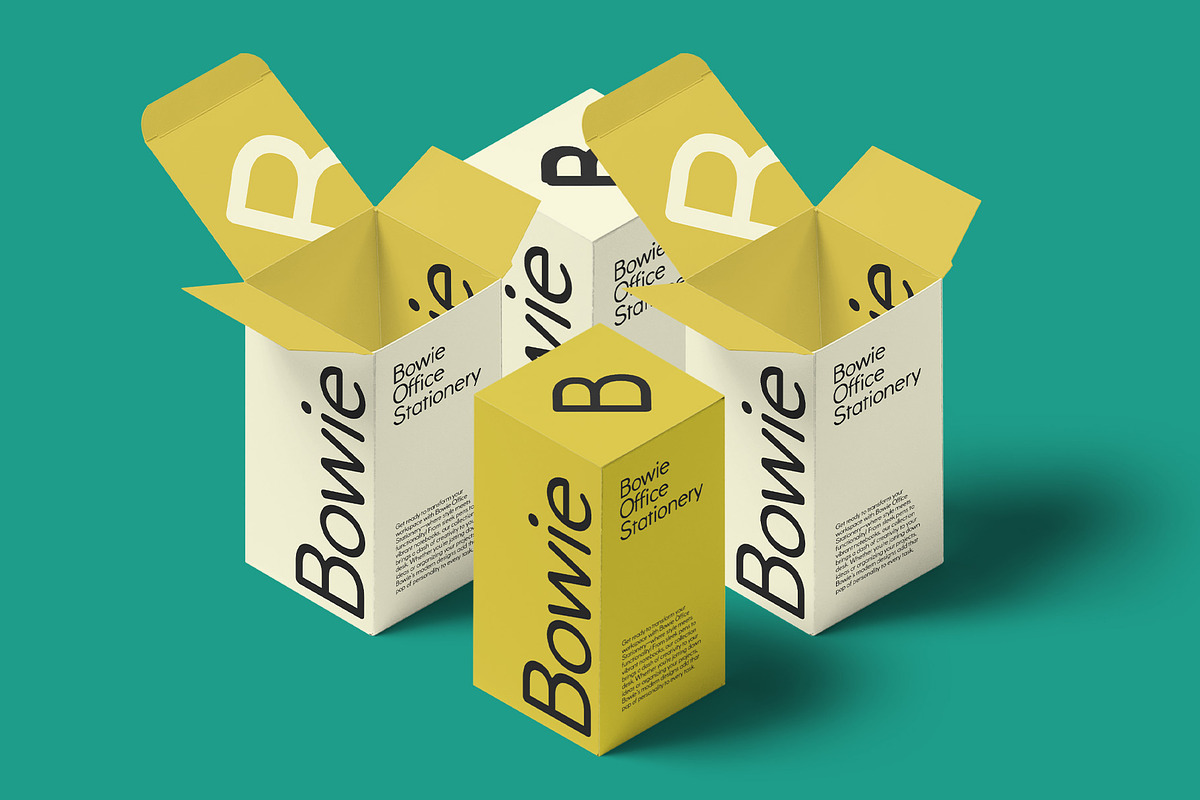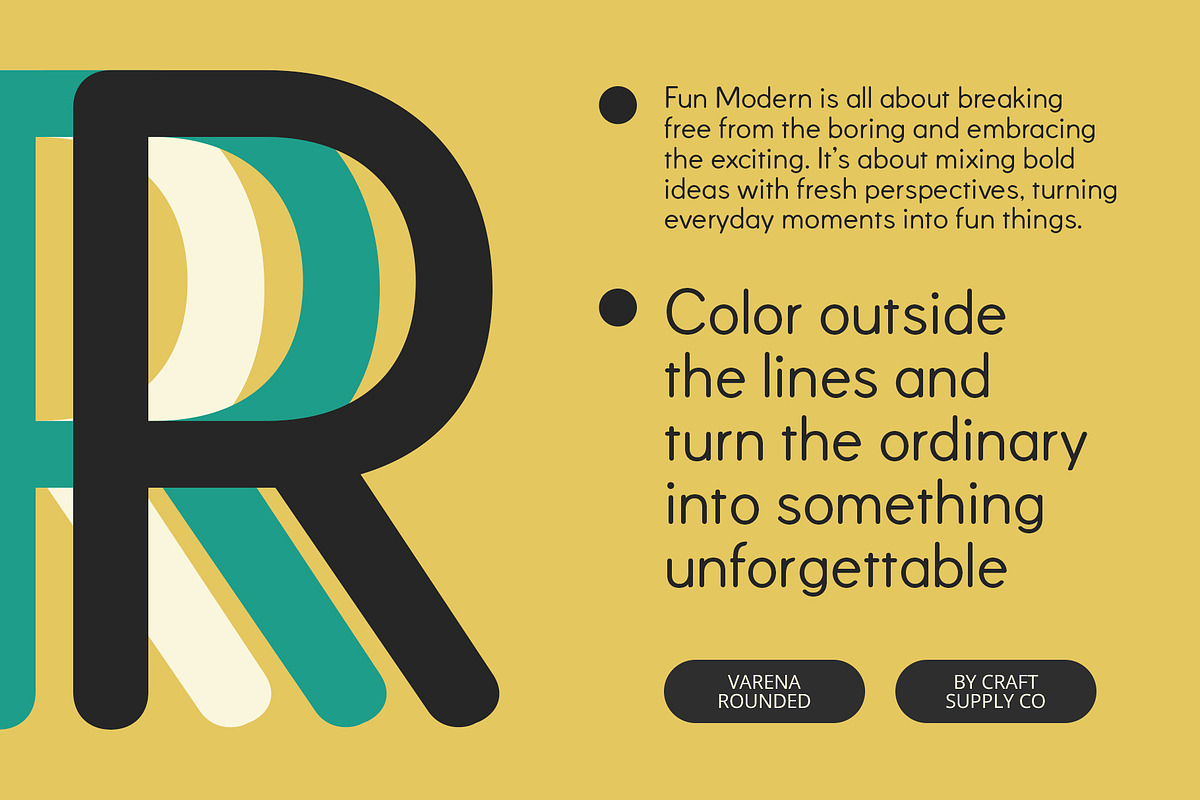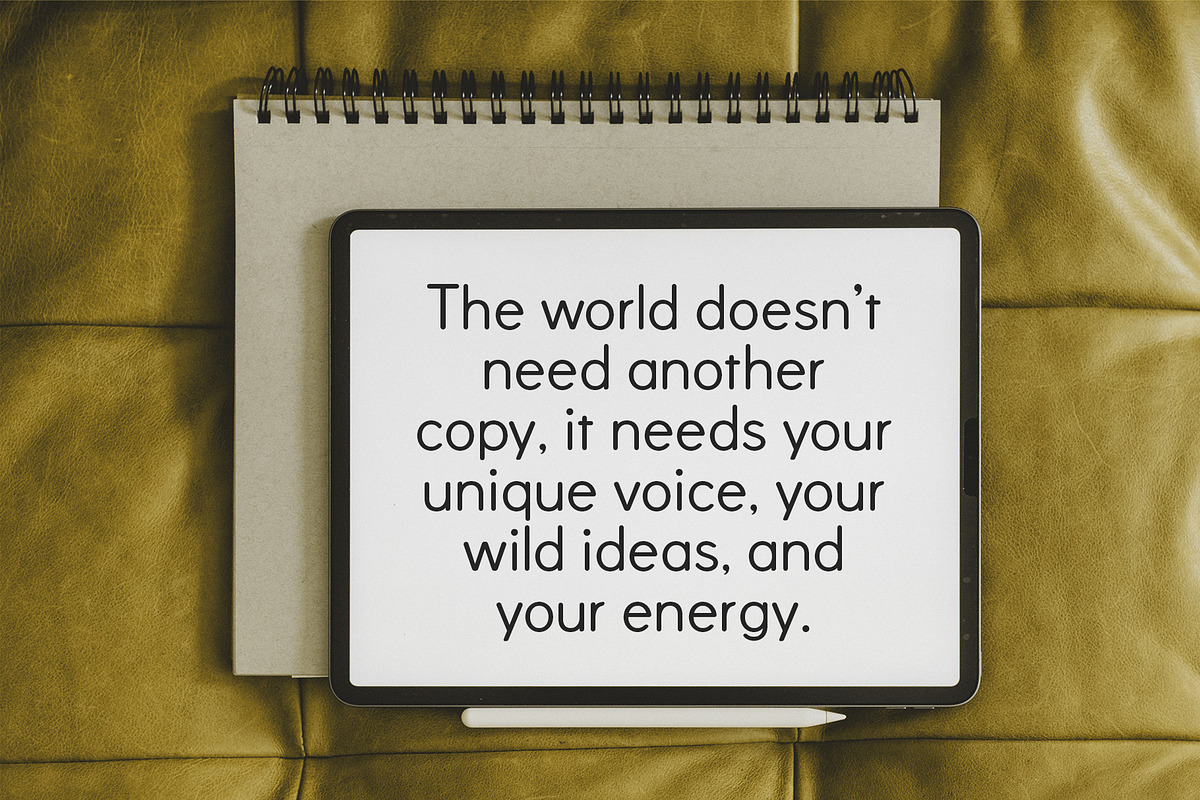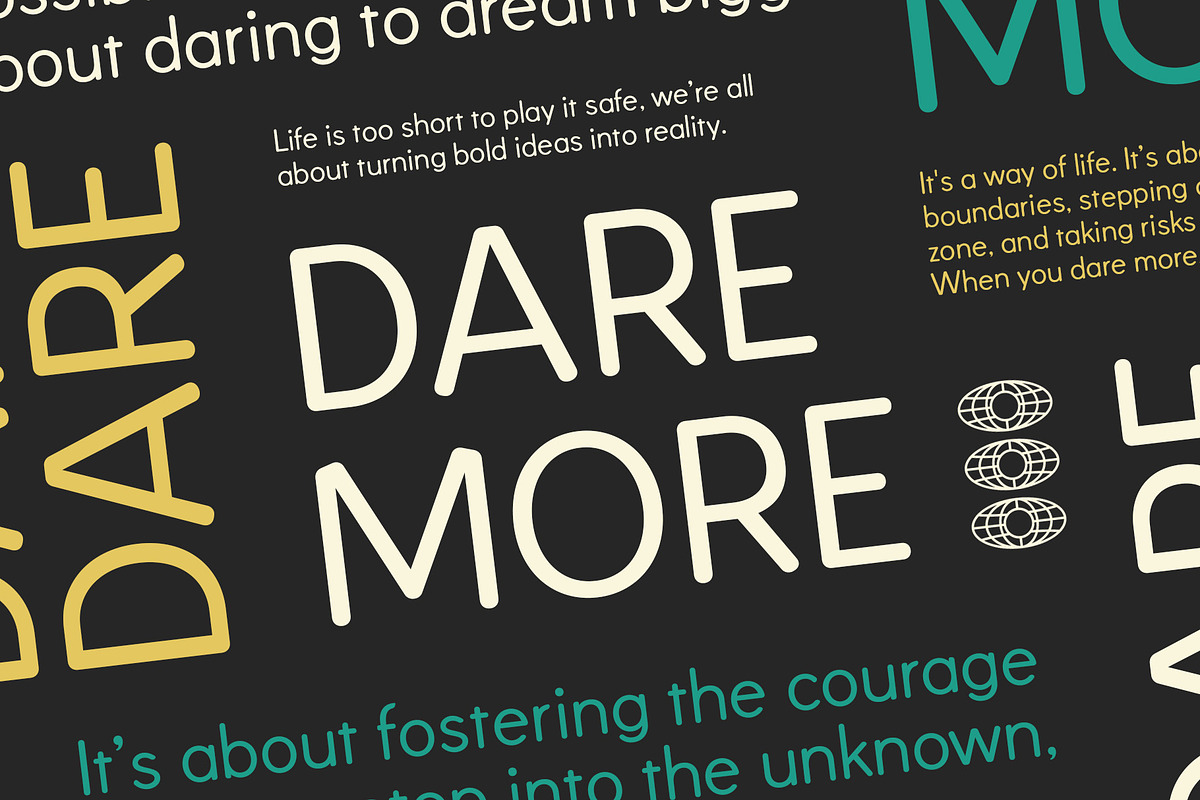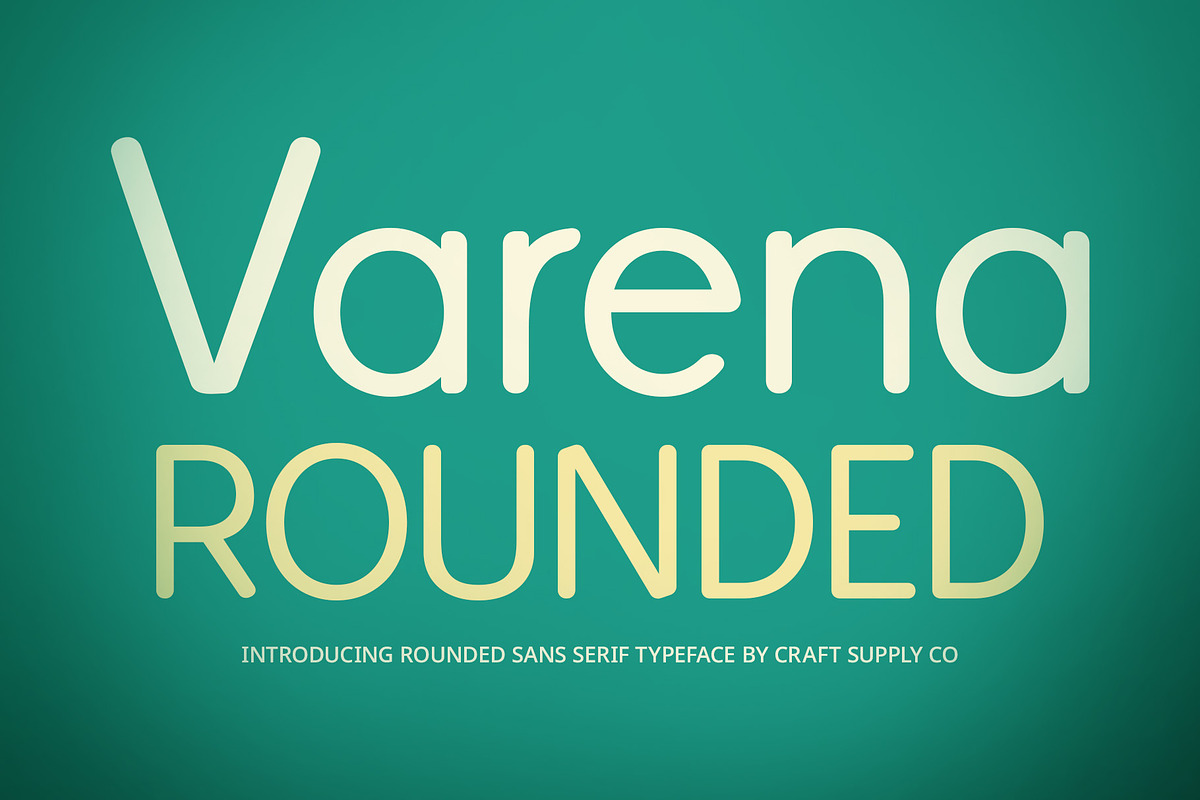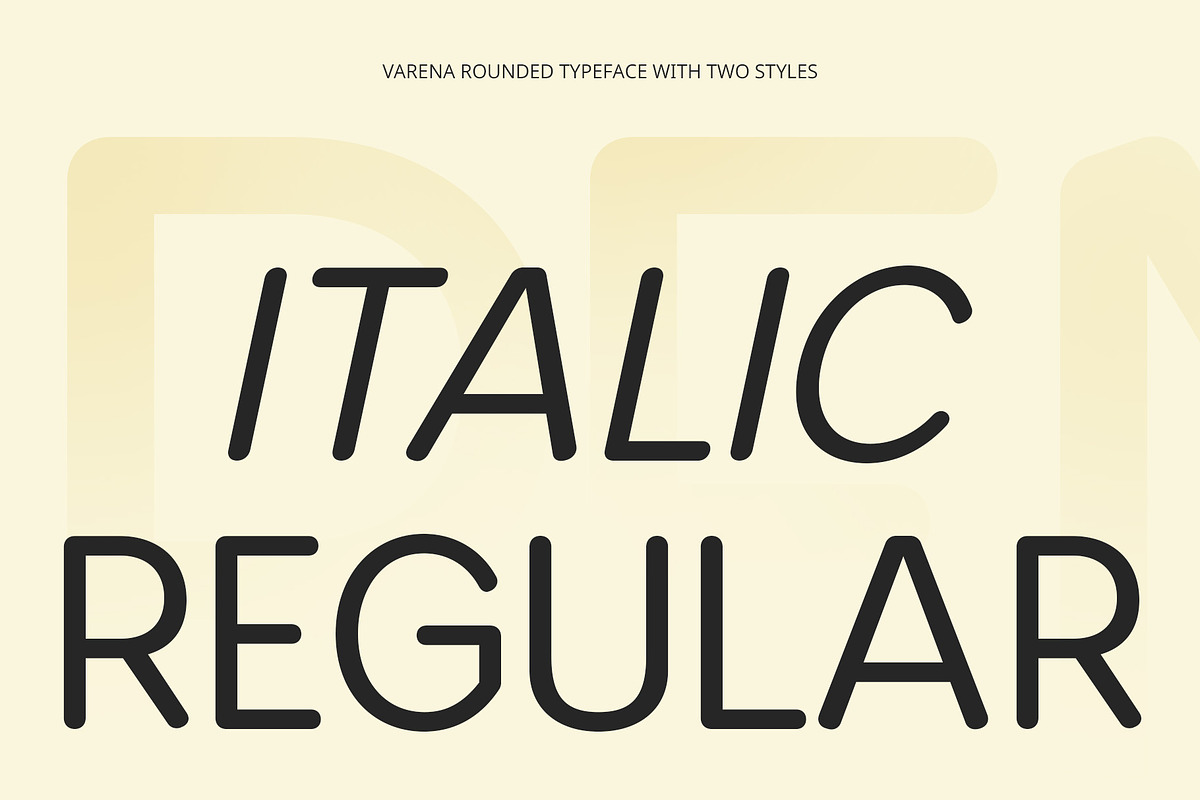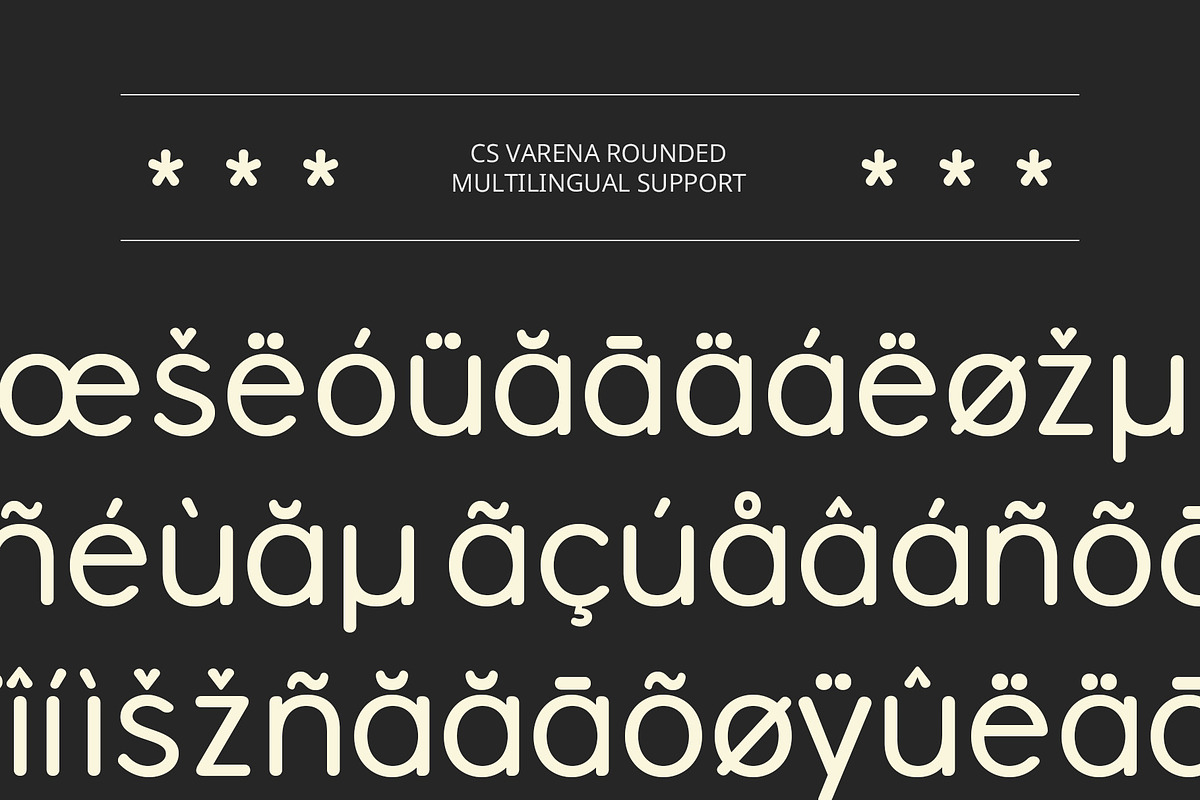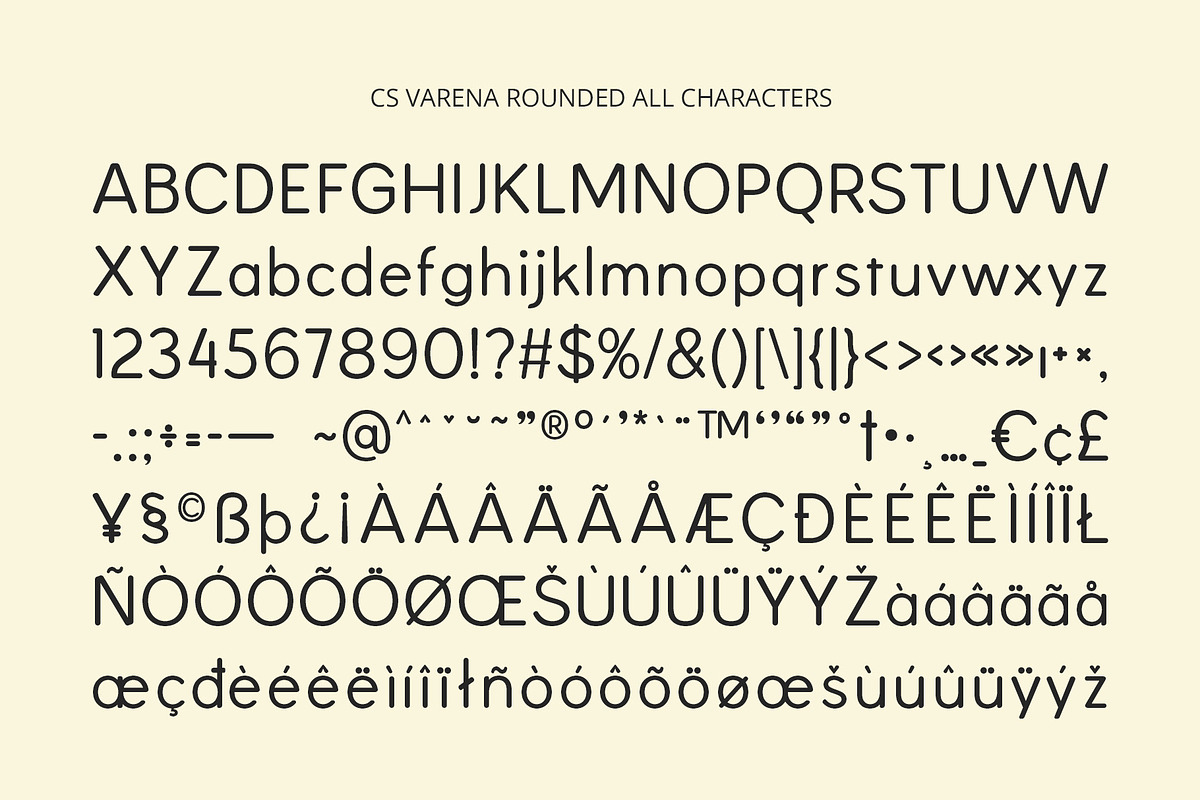
Varena Rounded
Varena Rounded Font: Geometric Clarity with a Soft, Inviting Touch
Modern, Geometric Design with a Friendly Feel Varena Rounded is a modern sans-serif font that blends the precision of geometric shapes with the warmth of rounded edges. The sleek, clean lines of the geometric design provide a structured and organized appearance, while the soft, curved corners add a sense of approachability and charm. This combination creates a contemporary, balanced look that is both professional and friendly, making it ideal for projects that aim to feel modern yet welcoming.
Clear, Balanced, and Easy to Read With its smooth curves and balanced proportions, Varena Rounded offers excellent readability at all sizes. The geometric shapes bring clarity to the design, while the rounded elements offer a softer, more inviting aesthetic. This makes the font perfect for a wide range of applications, from websites and logos to advertisements and branding materials. Its clean, accessible design ensures that it will stand out without overwhelming the viewer.
Perfect for Modern Brands Seeking Warmth and Accessibility Varena Rounded is ideal for brands that want to project a modern, professional image while maintaining a friendly and approachable vibe. Whether used for digital platforms, product packaging, or corporate identity, this font’s versatile design will make your message clear, approachable, and memorable. It brings a refreshing balance of contemporary minimalism and welcoming warmth.